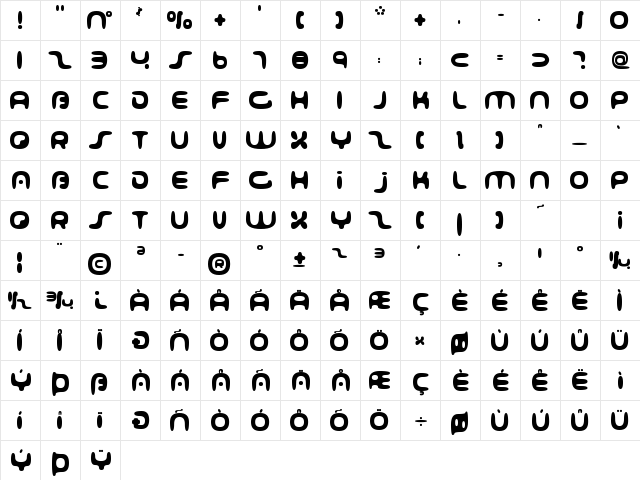
001 Interstellar Log Regular
Design Context for 001 Interstellar Log Typeface
001 Interstellar Log is a composed and adaptable typeface that performs quietly and consistently across a wide range of design contexts.